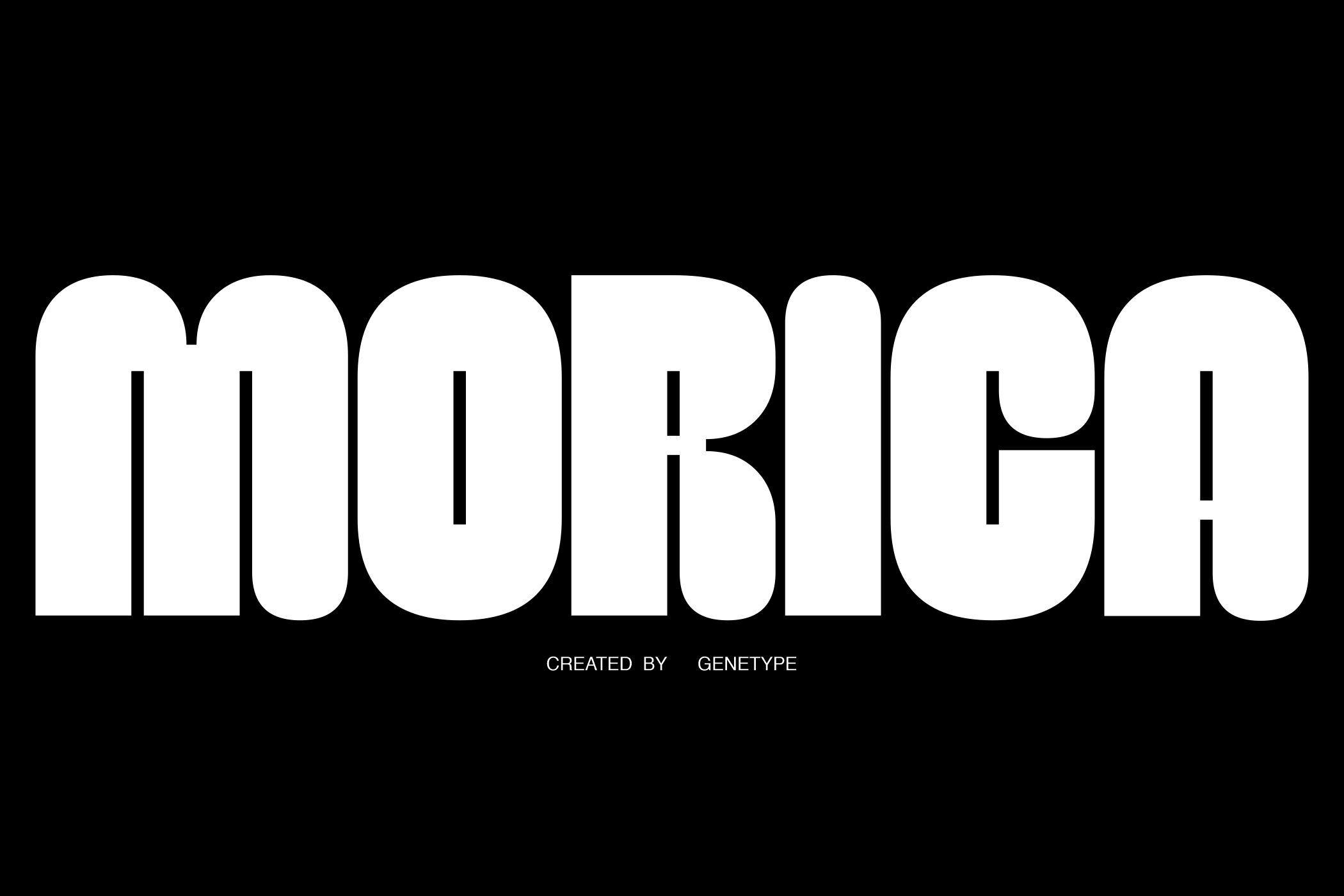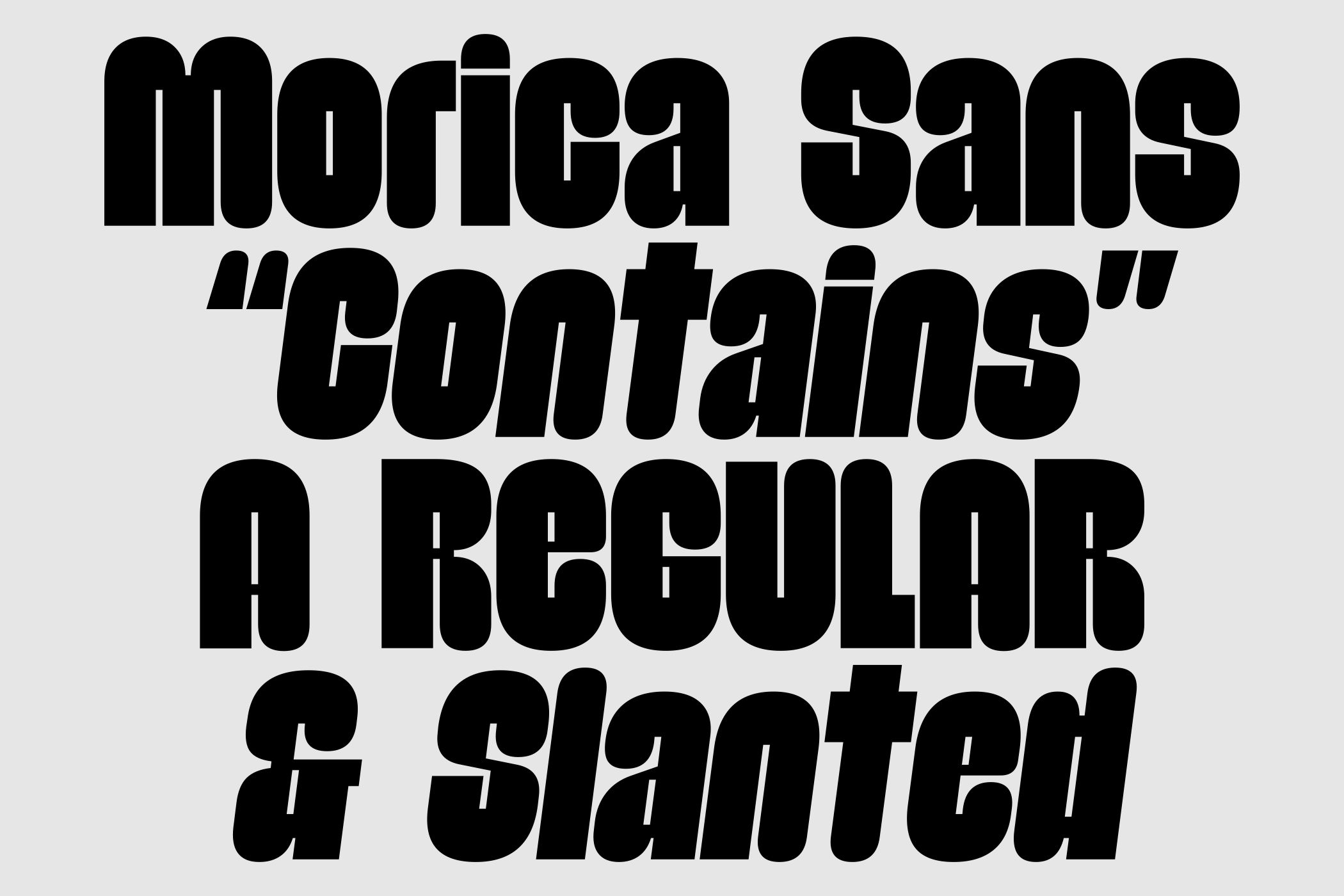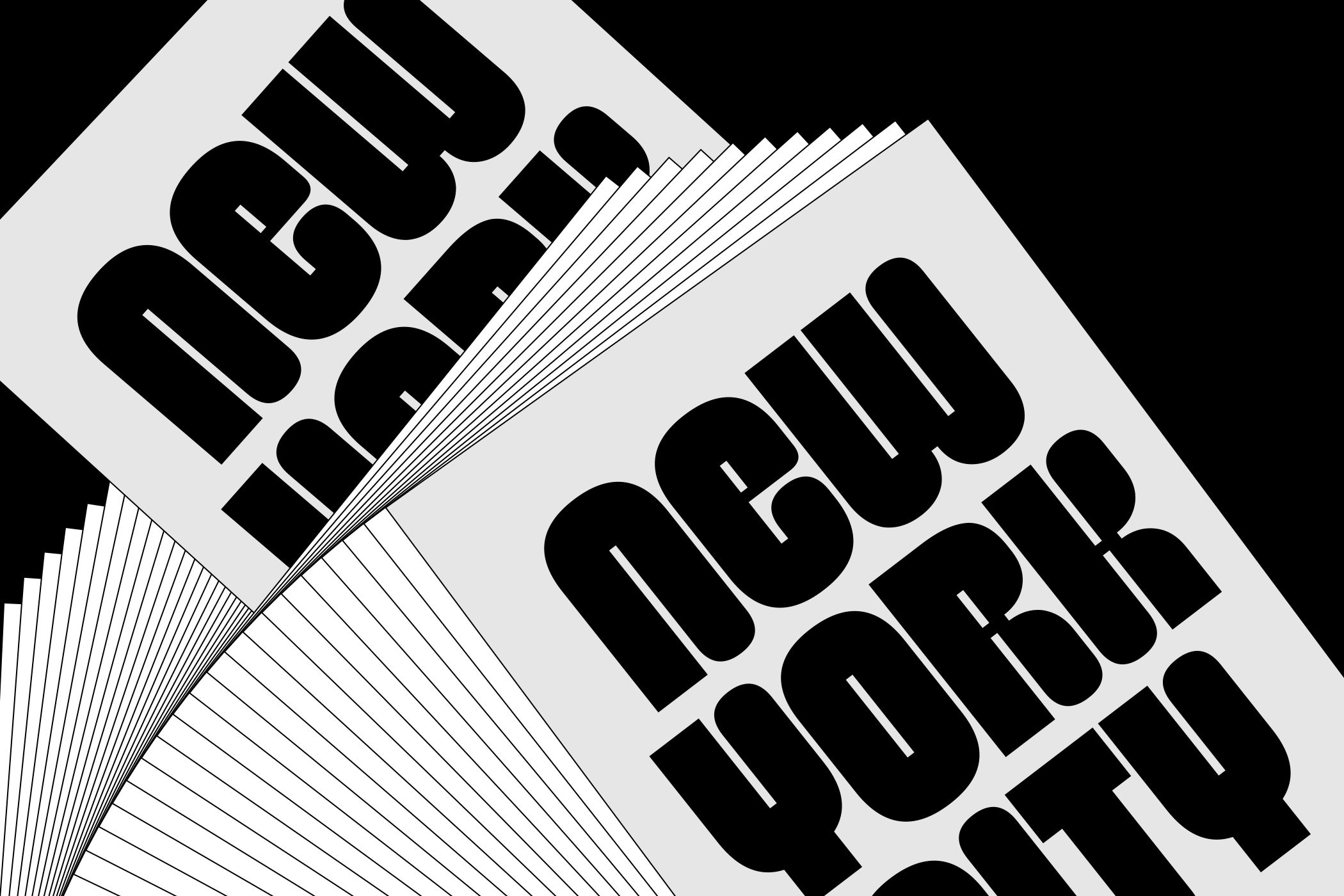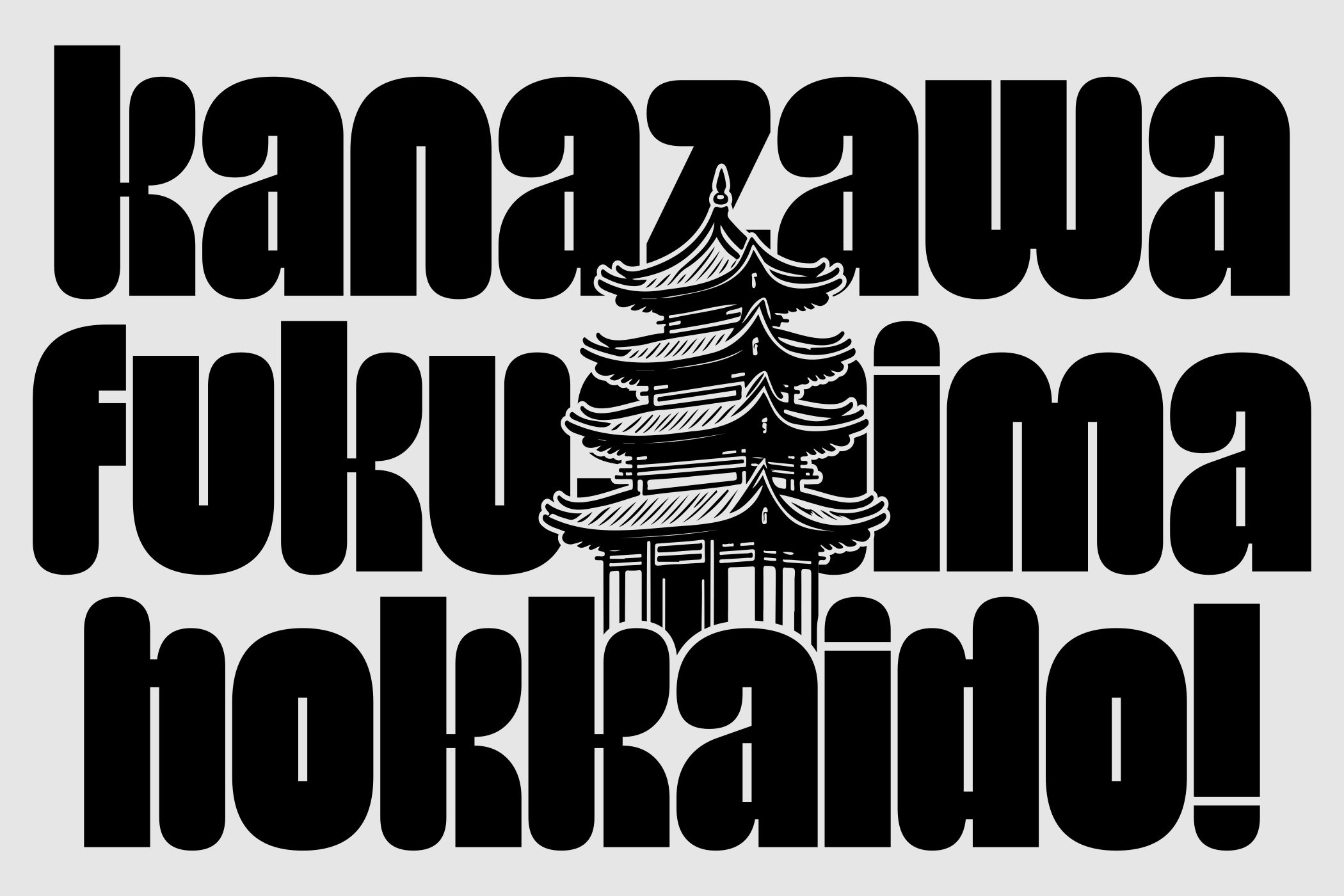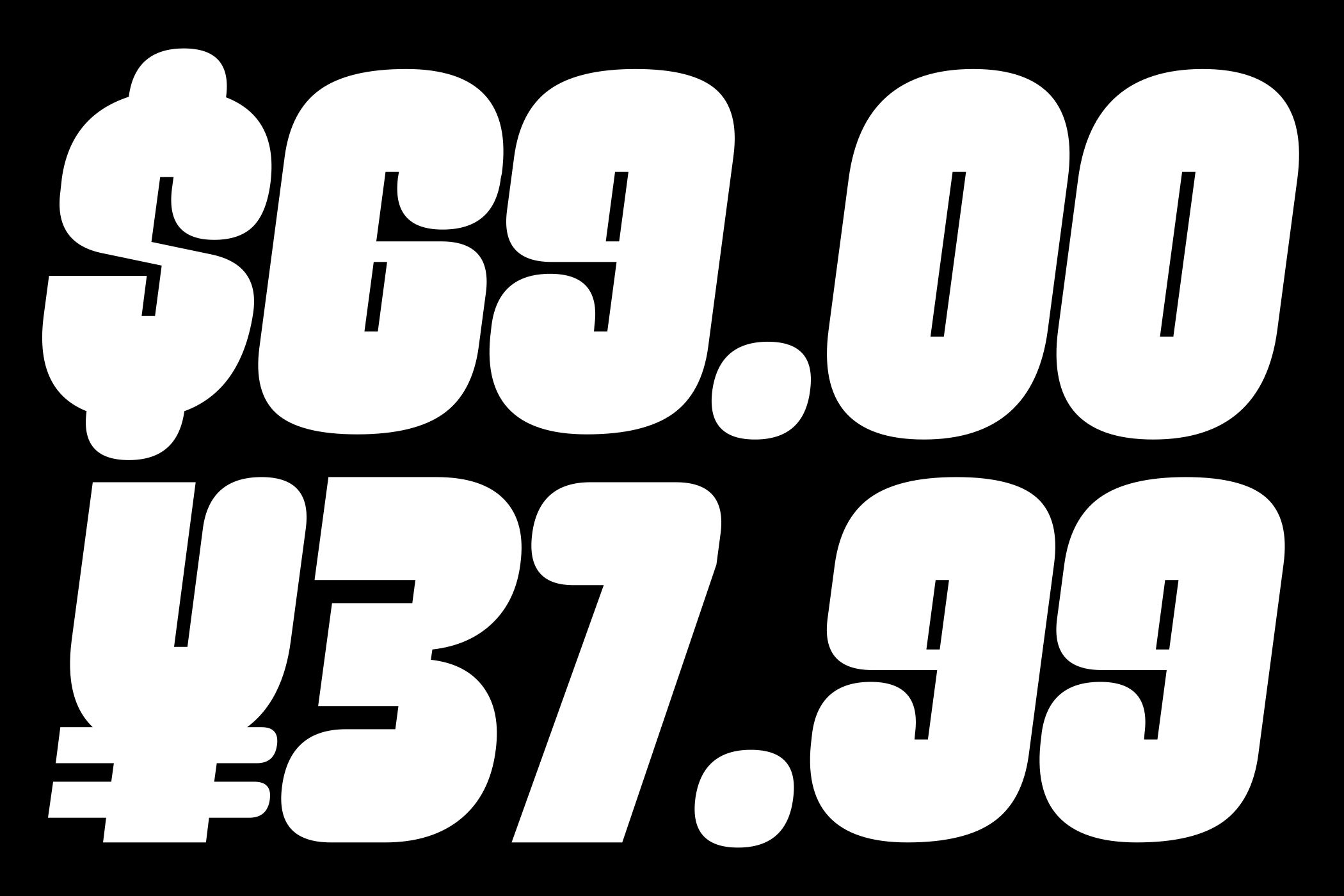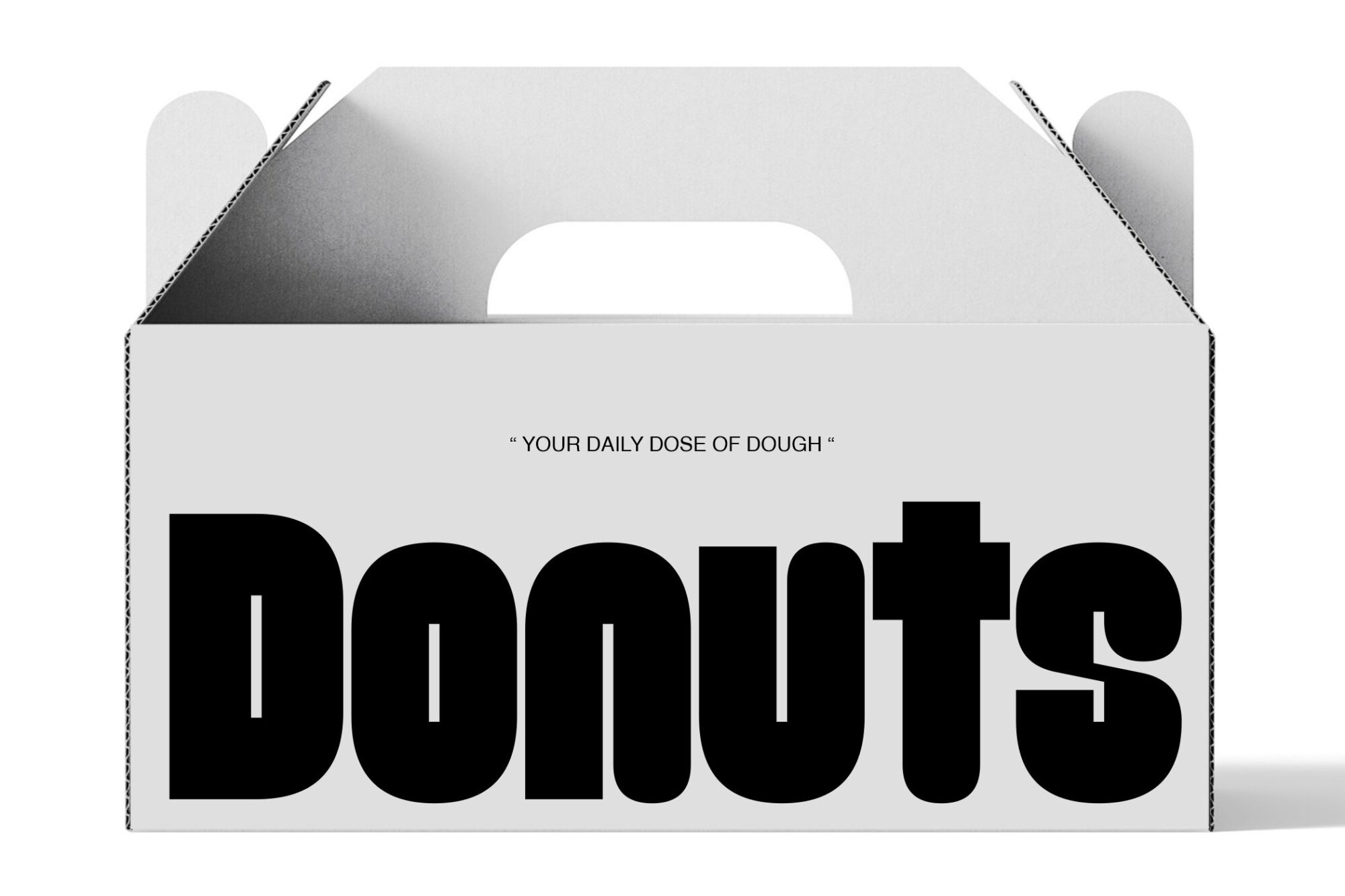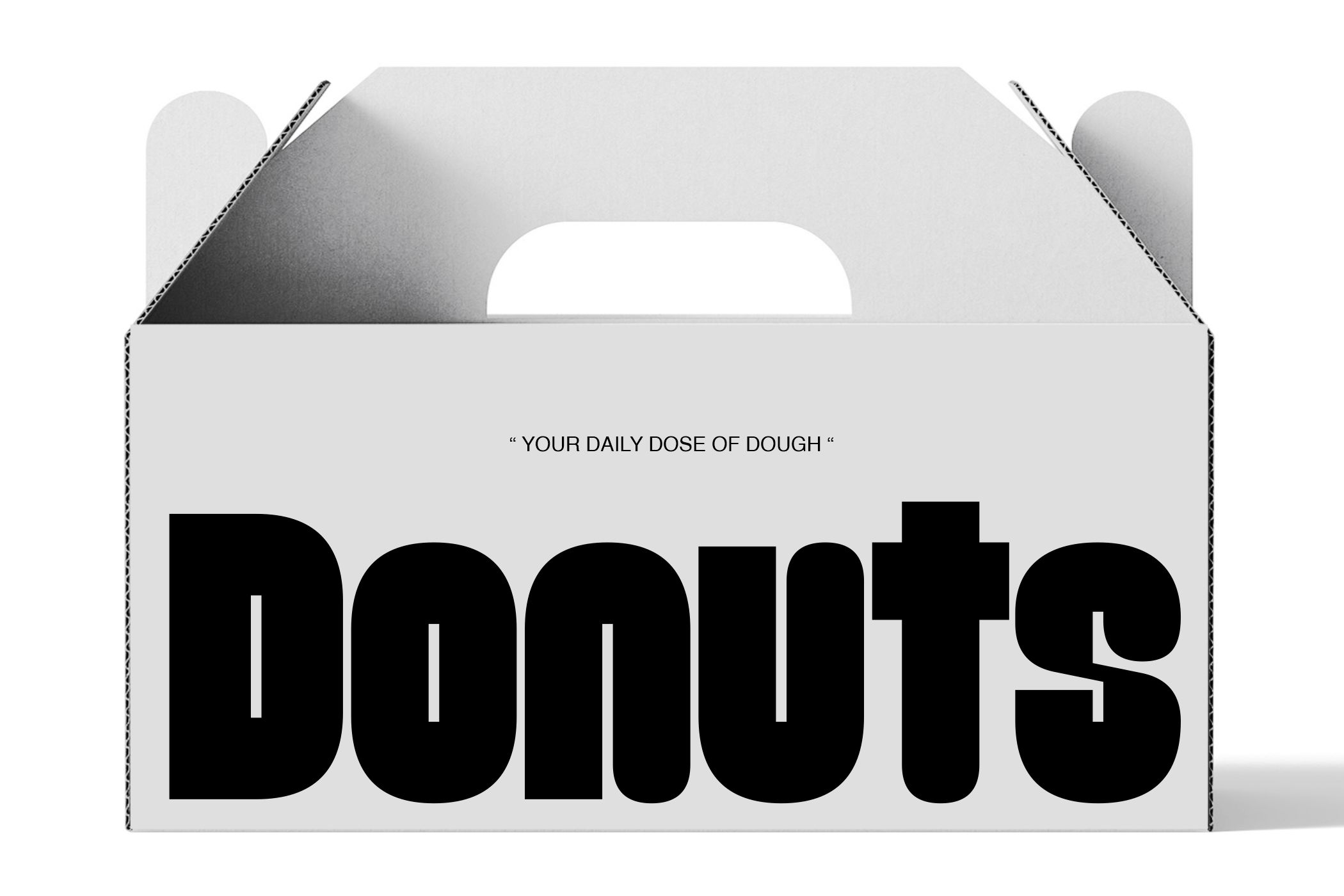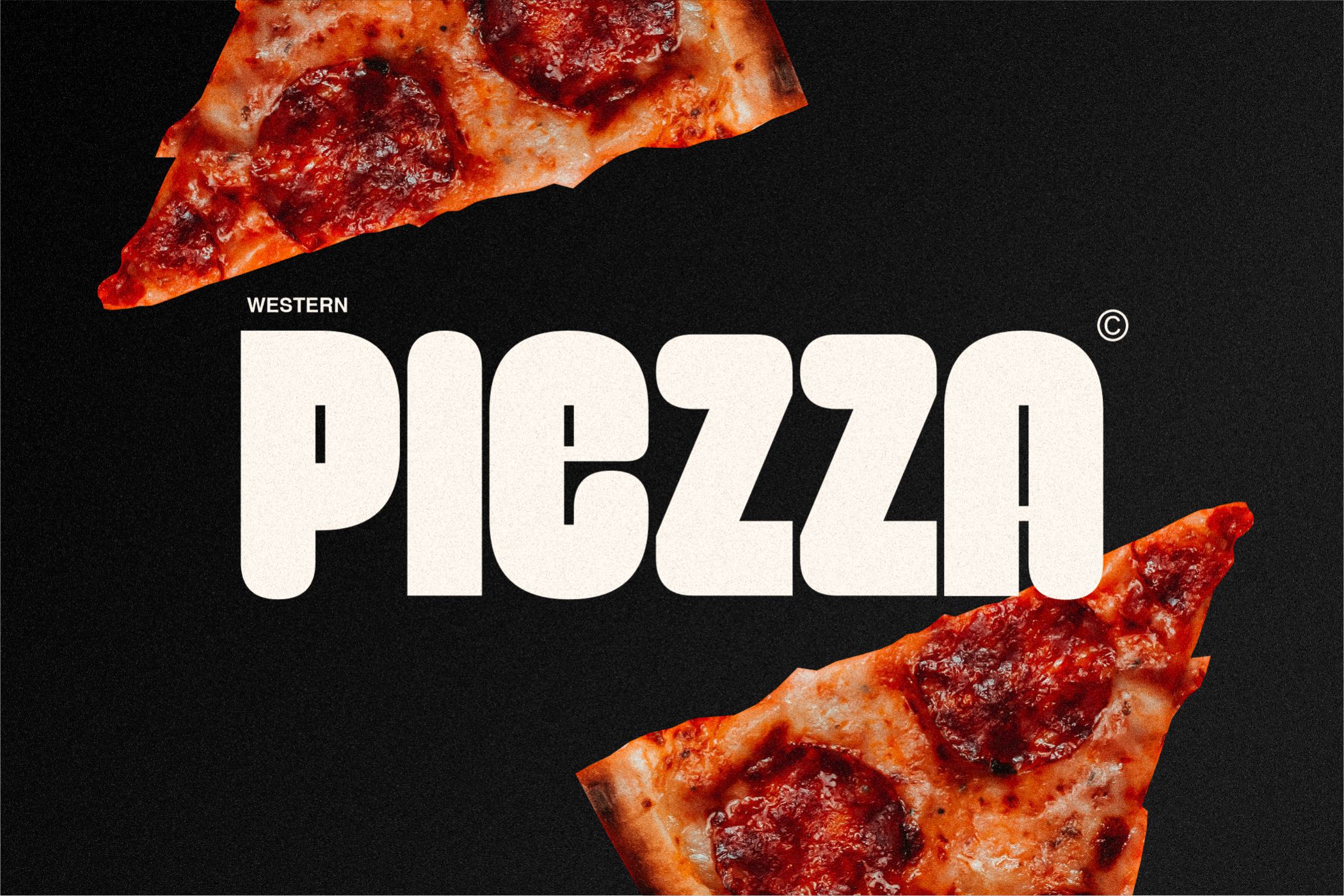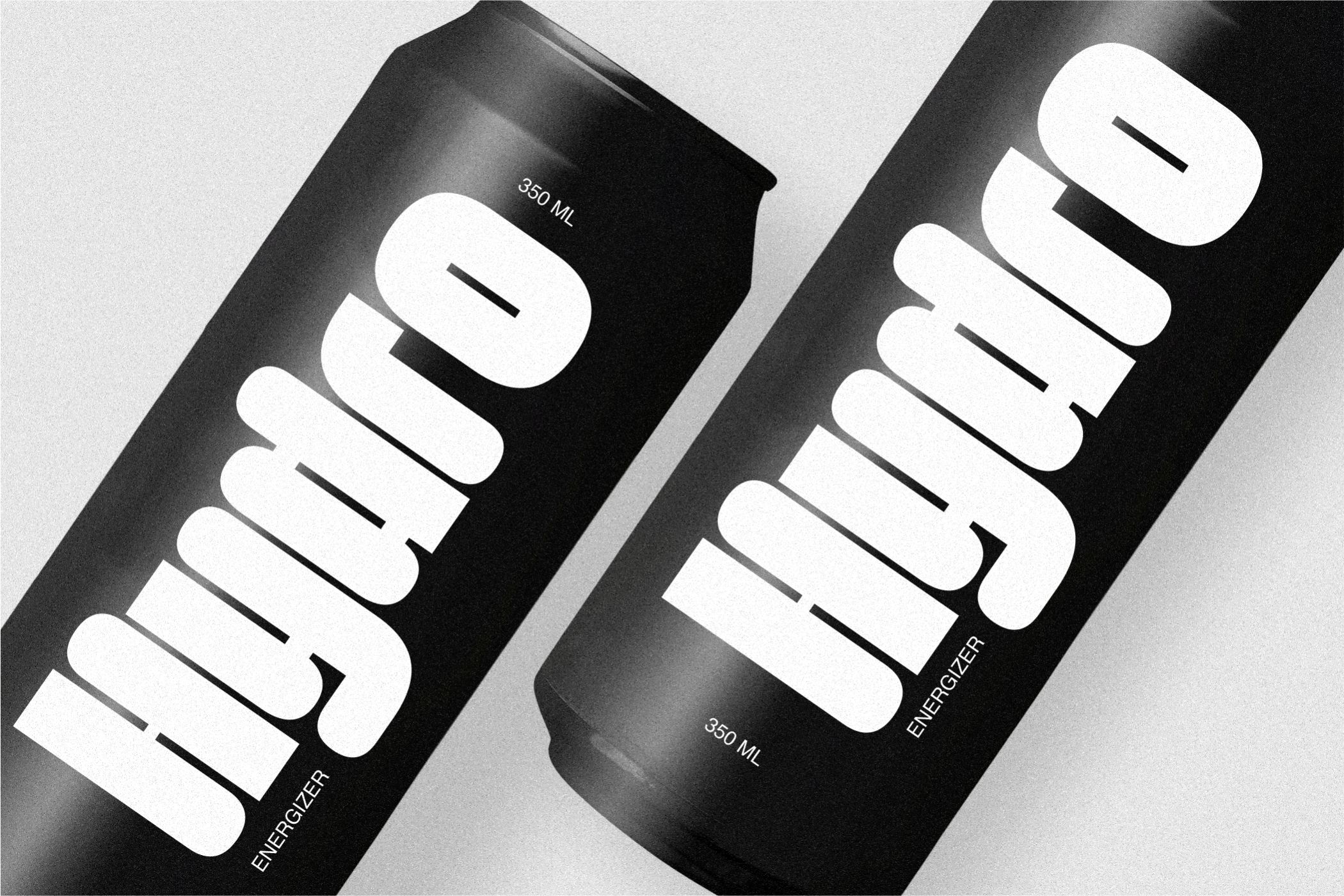
Morica Regular
Morica Slant
Morica – Bold Retro Display Font
Morica is a bold retro display font with chunky letterforms, smooth rounded corners, and a strong vertical structure. Designed to make a powerful visual statement, Morica brings a vintage-inspired personality that stands out in modern designs.
Its tall and condensed proportions allow headlines to look compact yet impactful, making it perfect for posters, branding, editorial titles, packaging, and eye-catching social media graphics. The bold shapes and playful curves create a balance between retro character and modern clarity.
Morica works great for branding projects, posters, merchandise, advertising, packaging, and bold visual identities that need a strong typographic presence.
• Uppercase & Lowercase
• Numbers & Punctuation
• Multilingual Support
• Bold Rounded Display Style
• Perfect for Headlines & Branding
Morica is the perfect choice for designers looking to create bold, retro-inspired typography that grabs attention instantly.
Morica Sans
Morica is a bold retro display font with chunky rounded shapes and strong condensed proportions, perfect for posters, branding, packaging, and impactful headlines.